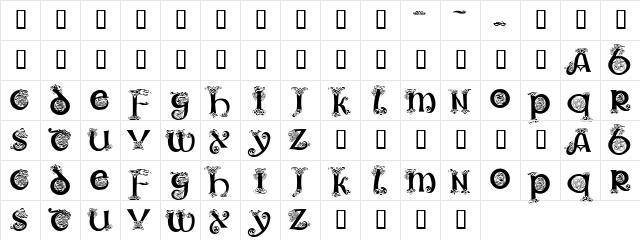
Trueheart Regular
Design Context for Trueheart Typeface
Trueheart is a composed and adaptable typeface that performs quietly and consistently across a wide range of design contexts.